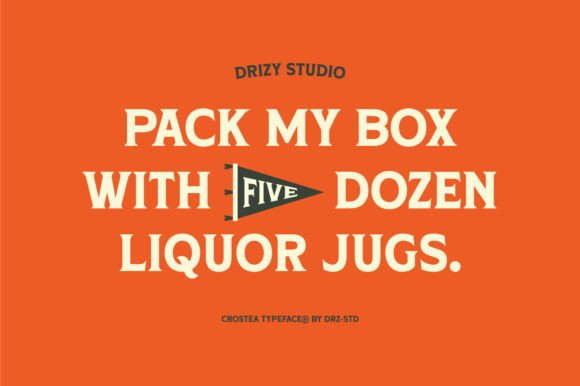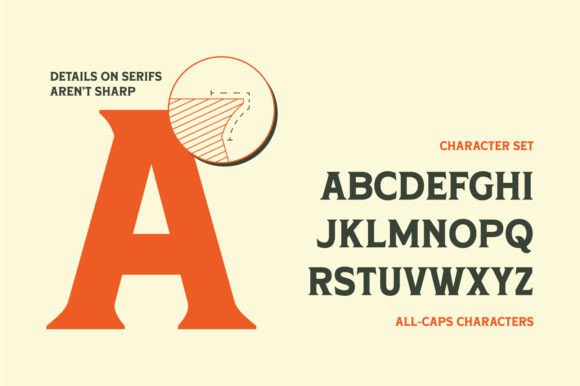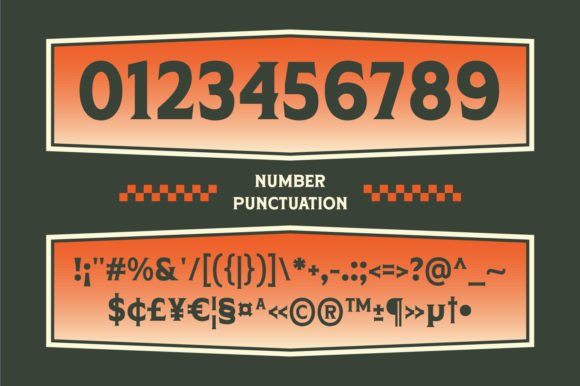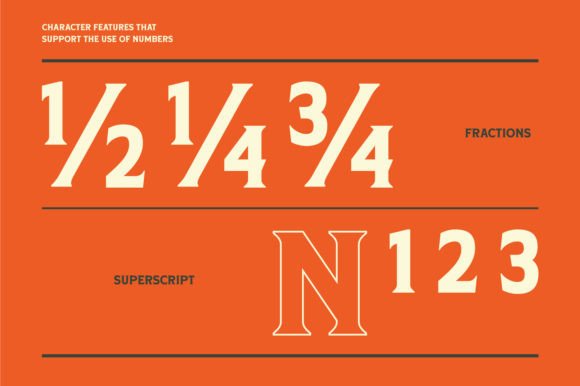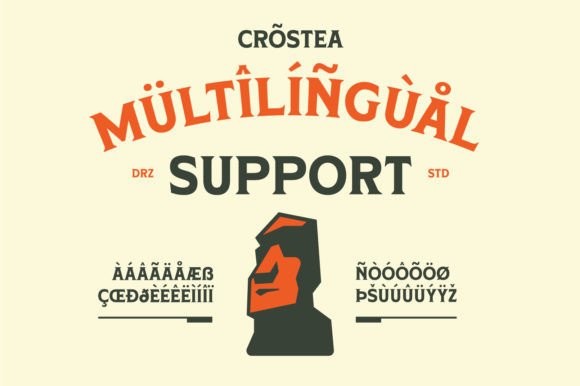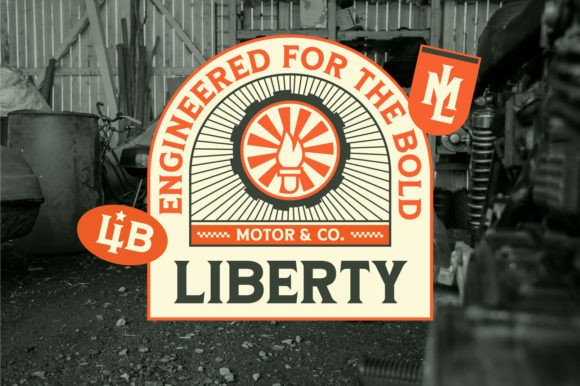
Crostea Font: A Timeless Journey Through Vintage Charm and Modern Flair
Welcome to the world of Crostea, a thoughtfully crafted serif font that embodies the perfect blend of vintage charm and adventurous spirit. With its retro, display, serif, and adventurous patch font styles, Crostea is an excellent choice for designers and crafters looking to add a nostalgic touch to their designs. In this article, we’ll embark on a typographic journey to explore the features, benefits, and applications of Crostea, and discover how this font can elevate your projects to new heights.
The Essence of Crostea: A Retro-Inspired Serif Font
Crostea is a meticulously crafted serif font that draws inspiration from the classic typography of the past. Its retro styling is evident in its elegant lines, refined curves, and distinctive letterforms. The font’s serif design adds a touch of sophistication and timelessness, making it perfect for a wide range of applications, from posters and logos to packaging and branding.
One of the standout features of Crostea is its versatility. The font comes in various styles, including retro, display, serif, and adventurous patch fonts, allowing designers to experiment with different looks and feels. Whether you’re creating a vintage-inspired poster or a modern logo, Crostea provides the flexibility to adapt to your design needs.
Key Features of Crostea Font
- Retro Styling: Crostea’s retro-inspired design captures the essence of classic typography, adding a nostalgic touch to your designs.
- Serif Elegance: The font’s serif design adds a touch of sophistication and timelessness, making it perfect for a wide range of applications.
- Versatility: Crostea comes in various styles, including retro, display, serif, and adventurous patch fonts, allowing designers to experiment with different looks and feels.
- Timeless Appeal: Crostea’s classic design ensures that your projects will remain relevant and stylish for years to come.
Applications of Crostea Font
Crostea is an excellent choice for a wide range of design projects, including:
- Posters: Add a touch of vintage charm to your posters with Crostea’s elegant serif design.
- Logos: Create a lasting impression with Crostea’s distinctive letterforms and retro styling.
- Packaging: Elevate your packaging designs with Crostea’s timeless elegance and sophistication.
- Branding: Establish a strong brand identity with Crostea’s versatile and adaptable design.
Benefits of Using Crostea Font
By incorporating Crostea into your design projects, you can:
- Stand Out: Crostea’s unique design ensures that your projects will stand out from the crowd.
- Save Time: With Crostea’s versatility and adaptability, you can save time and effort in finding the perfect font for your projects.
- Elevate Your Designs: Crostea’s timeless elegance and sophistication can elevate your designs to new heights.
In conclusion, Crostea is a thoughtfully crafted serif font that offers a perfect blend of vintage charm and modern flair. With its retro-inspired design, elegant serif lines, and versatile styles, Crostea is an excellent choice for designers and crafters looking to add a nostalgic touch to their designs. Whether you’re creating posters, logos, packaging, or branding materials, Crostea provides a timeless elegance that commands attention. So why wait? Unleash your creativity and elevate your projects with Crostea – a font that blends classic appeal with contemporary flair.